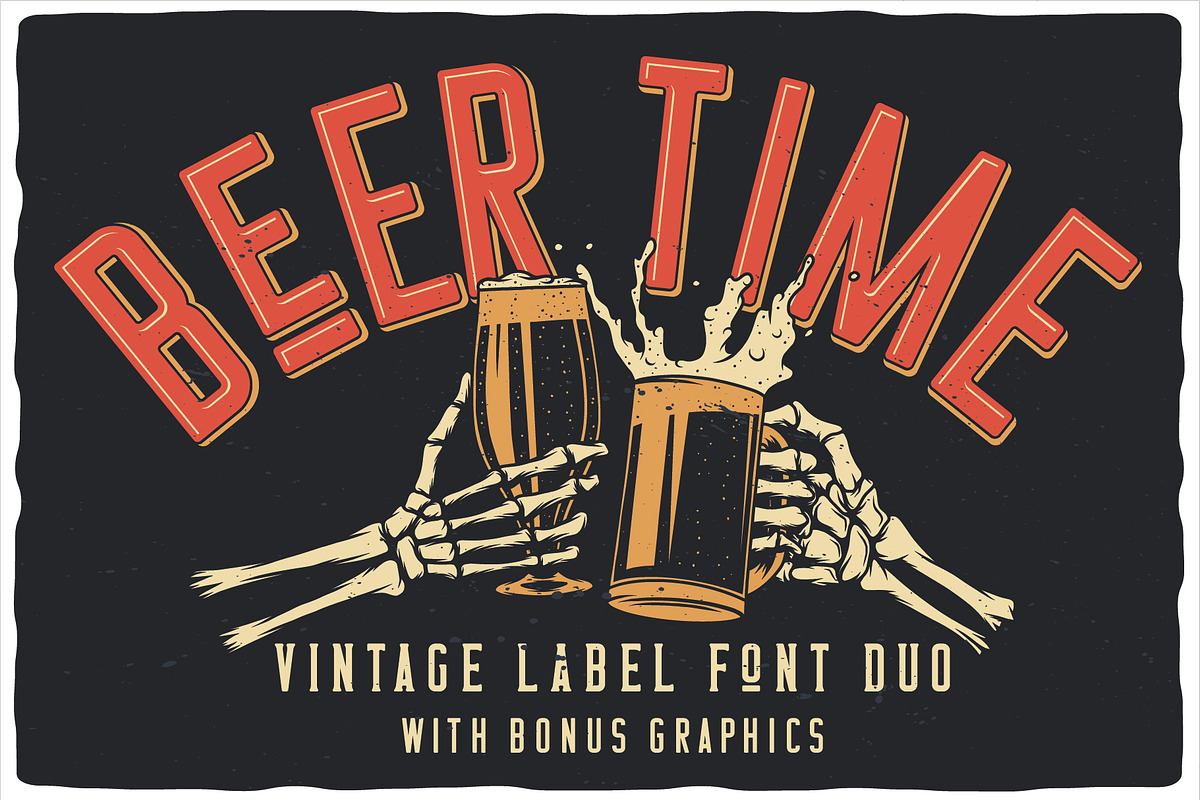
Beer Time Label Font Free Download is a bold, vintage-inspired typeface designed specifically for creating beer labels, packaging, and branding that demand attention. With its classic and rustic appeal, this font is perfect for beer bottles, promotional materials, event posters, and anything related to the brewing industry.
Beer Time Label combines a strong, geometric style with playful, hand-crafted elements, giving it a timeless look that works well for craft breweries, pubs, and any design that celebrates beer culture. Whether you’re creating a logo or a full label design, this font ensures your brand stands out with style and authenticity.
The font includes uppercase and lowercase letters, numerals, punctuation, and multilingual support, making it versatile for a variety of design applications.